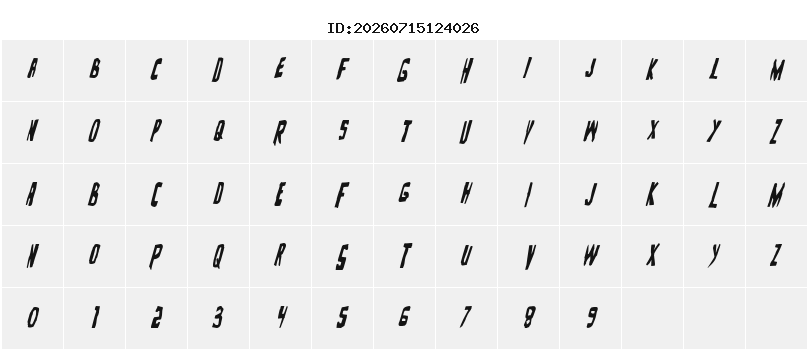
Zakenstein Condensed Italic Preview
• Font Name: Zakenstein Condensed Italic
• Font Style: Condensed Italic
• Full Font Name: Zakenstein Condensed Italic
About Zakenstein Condensed Italic.ttf
Zakenstein Condensed Italic.ttf is a modern, elegant sans-serif font designed for ultimate readability and visual harmony. Perfect for branding, headlines, web design, and print materials.